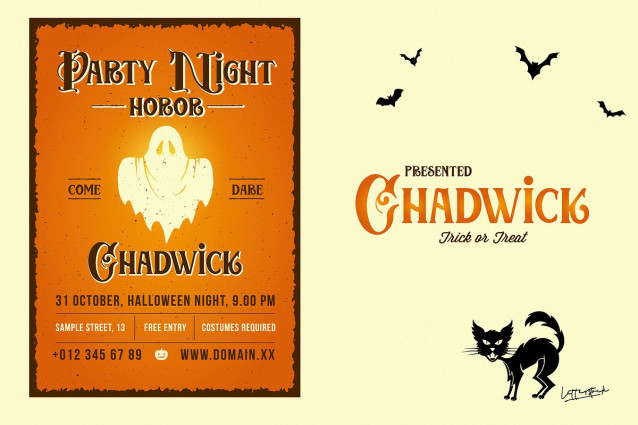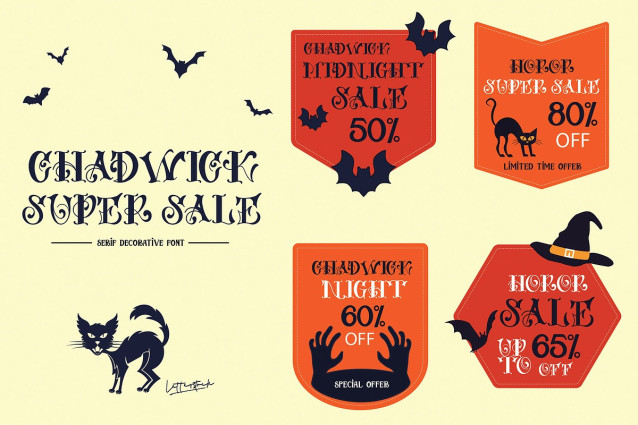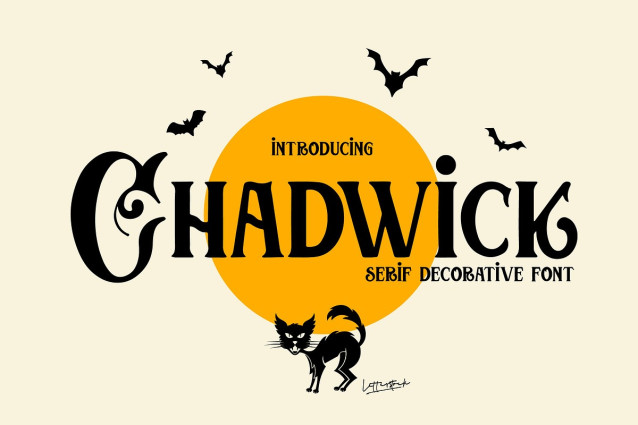
Chadwick Font
Chadwick Font This pair was inspired by the grest poster design that i saw on some coffee shop, It was crafted by hand specially to add natural handmade feeling in its brand identity than i make it clean with pentool.
Opentype features Chadwick font has 167 character set included Chadwick Font is very good looking in logo, labels, t-shirt prints, product packaging, invitations, advertising and others.